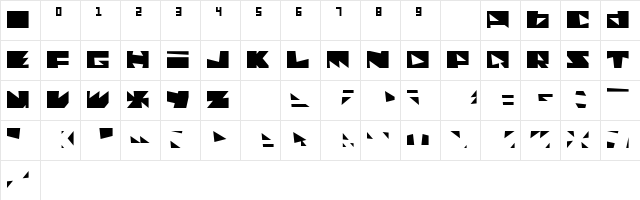
Monolithos 2012
Foundry: Gilles Pegel
Designer: Gilles Pegel
Design Context for Monolithos
Monolithos uses fixed-width spacing throughout, giving it the structured, systematic character associated with coding environments and technical documentation.